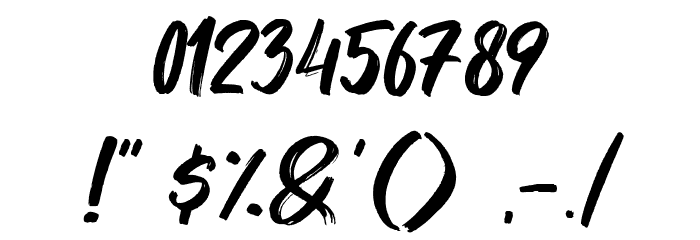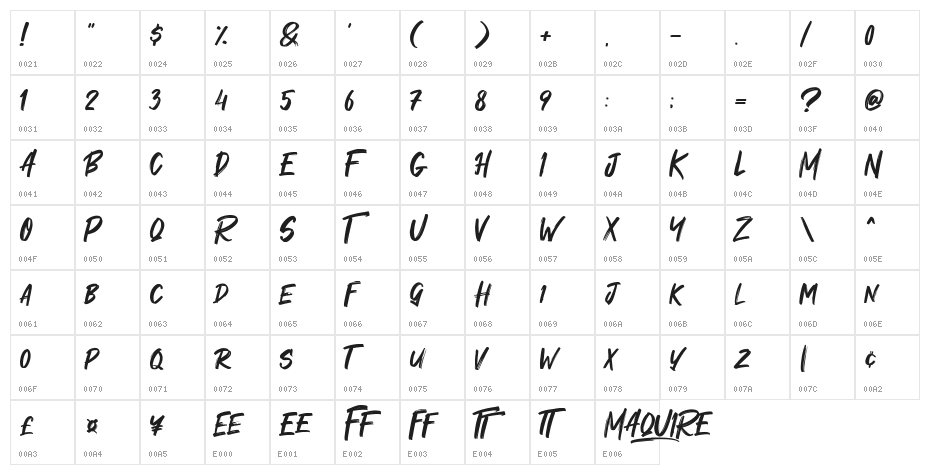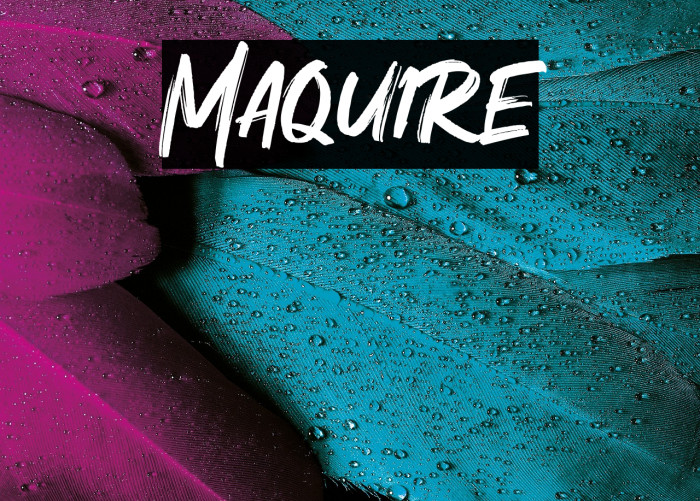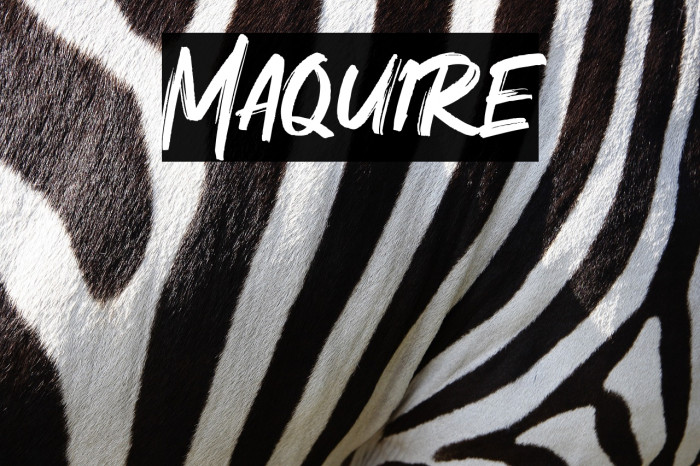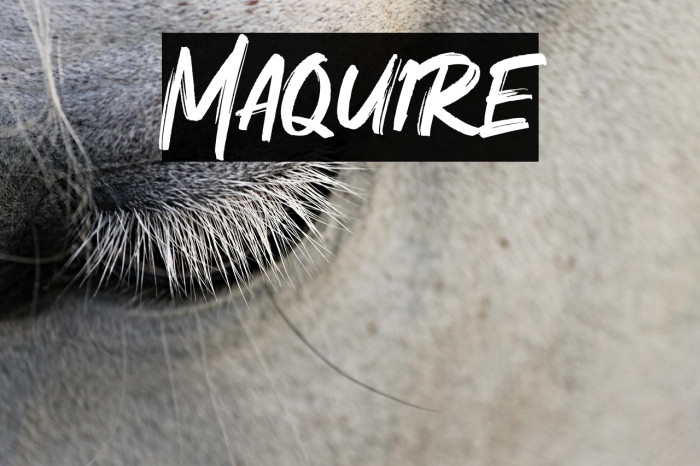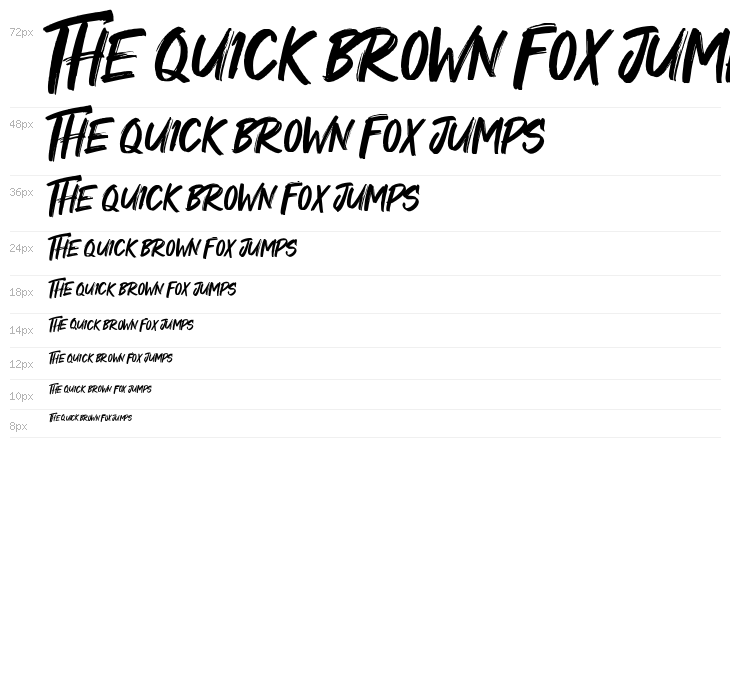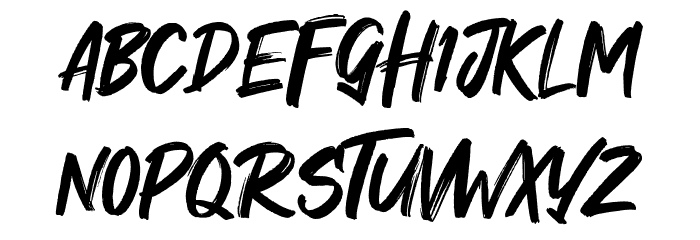
Maquire Font
Maquire Description
This font features a bold and energetic brush style, characterized by its dynamic strokes and expressive flair. The letters are crafted with a hand-painted appearance, giving them a lively and artistic feel. The uppercase and lowercase letters maintain a consistent flow, while the numbers and special characters complement the overall design with their unique brush-like qualities. The font's irregular edges and varying stroke widths add to its handcrafted charm, making it ideal for projects that require a personal and creative touch.